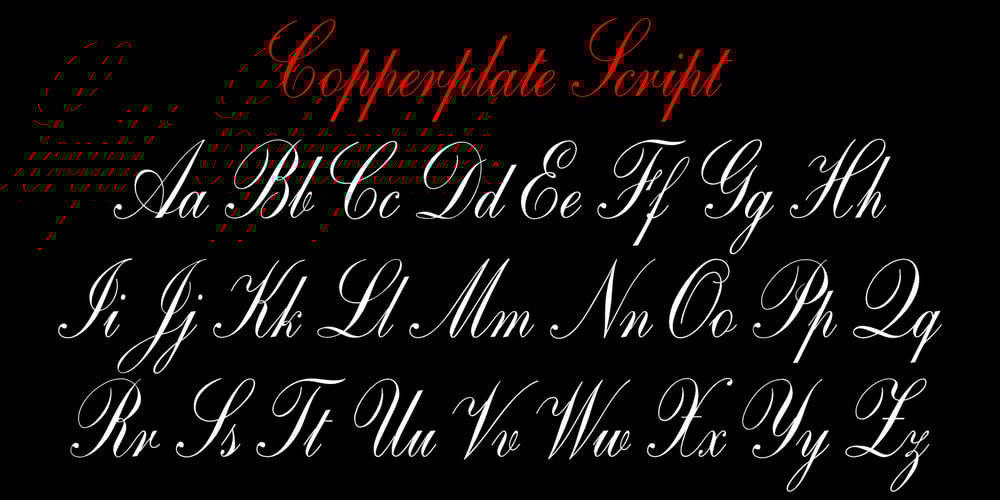
Copperplate Script
Copperplate Script font
Copperplate Script Font Family was designed by Jason Castle and published by CastleType. Copperplate Script contains 1 styles and family package options. One of the more elegant script fonts available, this design is based on calligraphic handwriting called “Copperplate” because of the copper plates that it was etched into for reproduction. This face is not related to Copperplate [Gothic] by the American type designer, F.W. Goudy. The name Copperplate comes from the fact that writing masters used to hand-write their books and then send them to an engraver who recreated all the subtle details onto copper plates, which where then used to print the handwriting books.